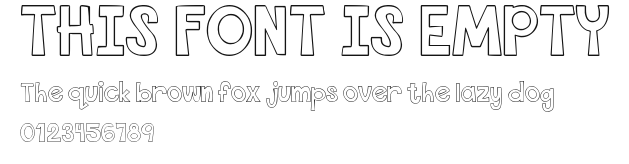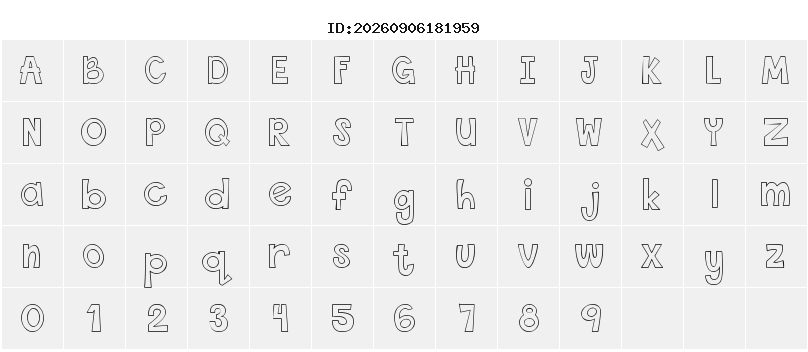
• Font Name: THIS FONT IS EMPTY
• Font Style: Gras
• Font ID: THIS FONT IS EMPTY Bold:Version 1.00
• Full Font Name: THIS FONT IS EMPTY Bold
• Version: Version 1.00 August 3, 2011, initial release
• PostScript Name: THISFONTISEMPTY-Bold
About THIS FONT IS EMPTY.ttf
THIS FONT IS EMPTY.ttf is a modern, elegant sans-serif font designed for ultimate readability and visual harmony. Perfect for branding, headlines, web design, and print materials.